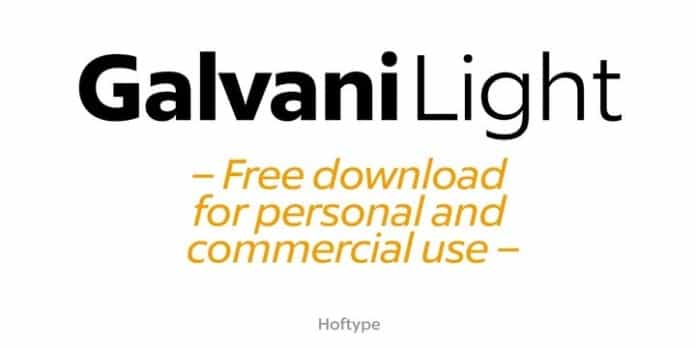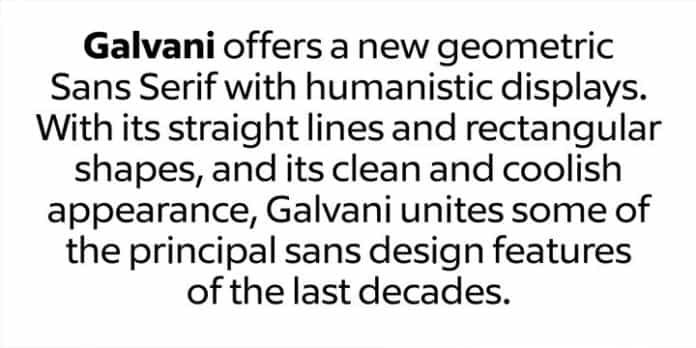
Galvani is a refreshing geometric Sans Serif font with humanistic touches. Boasting straight lines, rectangle shapes and its cool and clean aesthetic, Galvani brings together many of the most prominent design elements in contemporary Sans design – straight lines, rectangle shapes as well as its cool appearance – into one package. Equipped to handle advanced typography needs and available as Open Type format with extended support for multiple languages – Galvani is sure to become one of your go-to fonts!